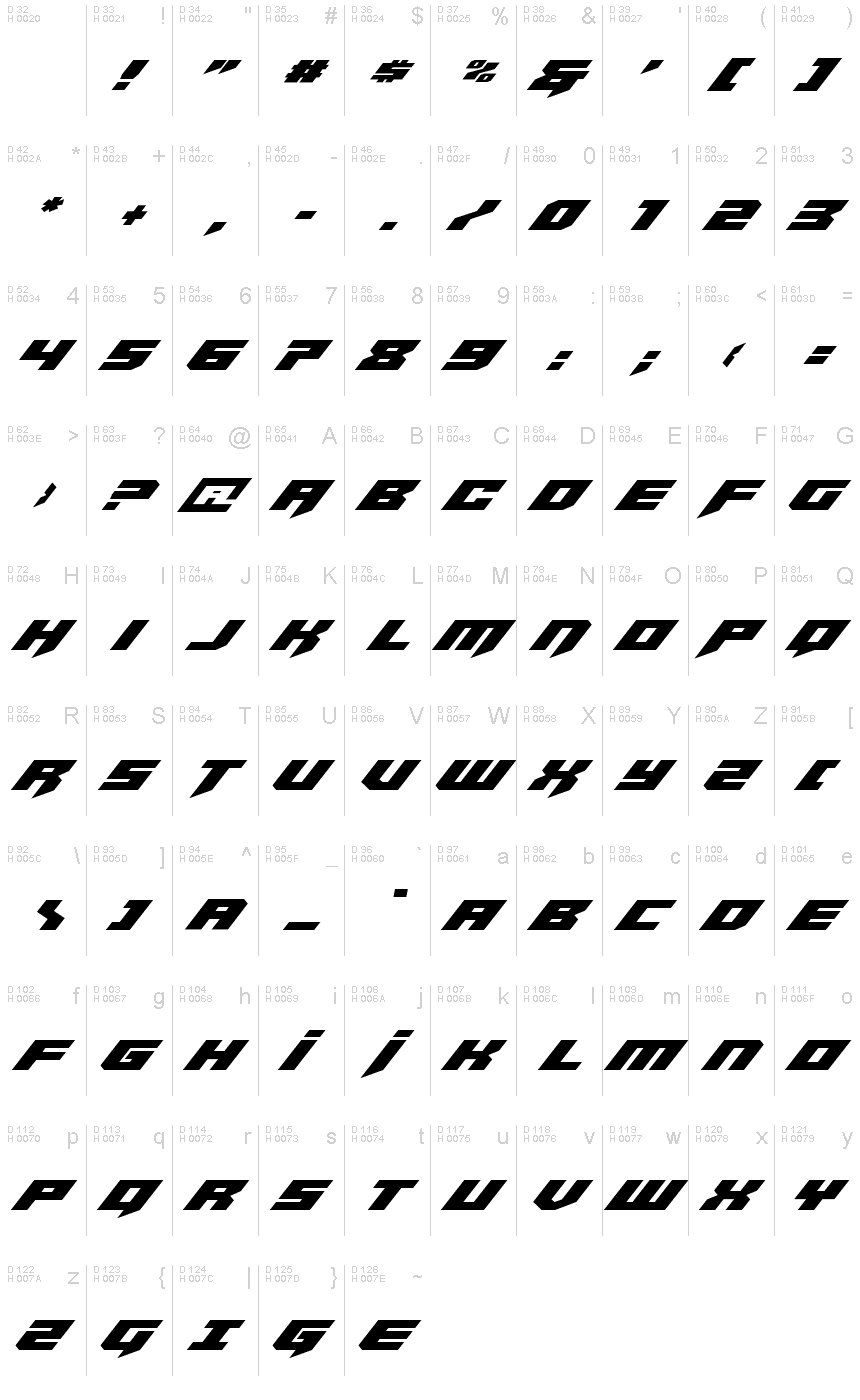
Bridge OFFicer Super-Italic
Bridge Officer Super-Italic, from the Bridge Officer font family, stands out with its assertive and futuristic design. Created by Iconian Fonts, this display typeface boasts an extra-bold weight paired with an expanded width that commands attention. The techno style of this font reflects a modernistic edge, making it ideal for projects that require a strong visual impact.
The sharp angles and pronounced italics of Bridge Officer Super-Italic add a dynamic tension to any layout, suggesting movement and forward-thinking. It's perfectly suited for gaming interfaces, movie titles, tech startups' branding materials or any creative endeavor aiming for a contemporary look.
Embrace the power and precision of Bridge Officer Super-Italic to convey your message with authority and style. Whether you're designing for print or digital mediums, this typeface is geared to make your words not just read but felt.